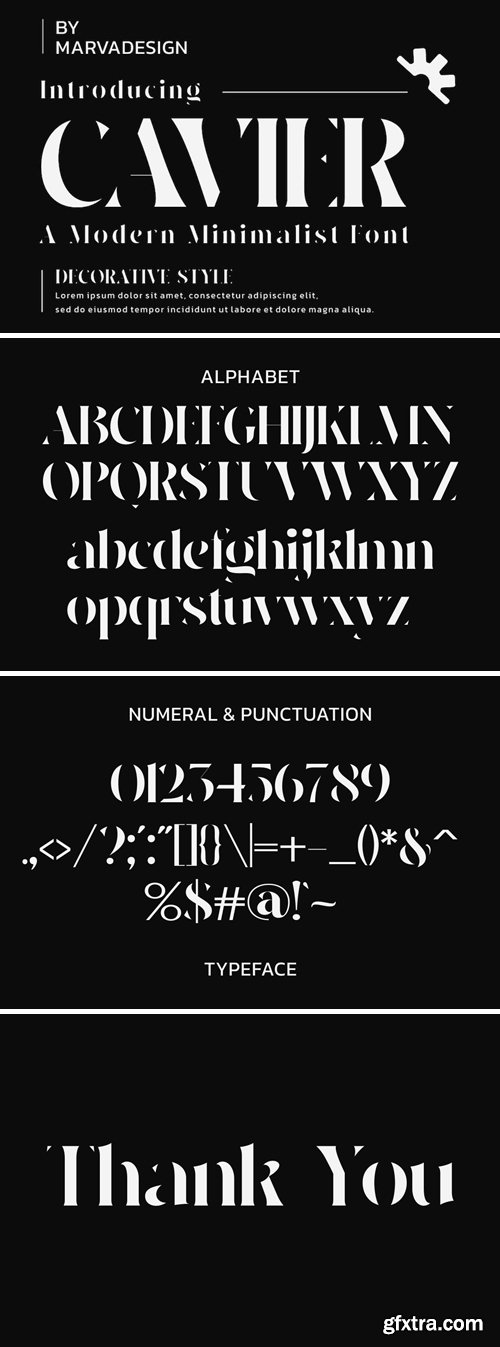
CAVIER - A Modern Minimalist Font
Introducing our new product CAVIER Font - Modern Font CAVIER Font** - Modern Font is a bold and authentic display font. The font is suitable for any branding project like logo, t-shirt printing, Product and many more. outstanding in a wide range of contexts.